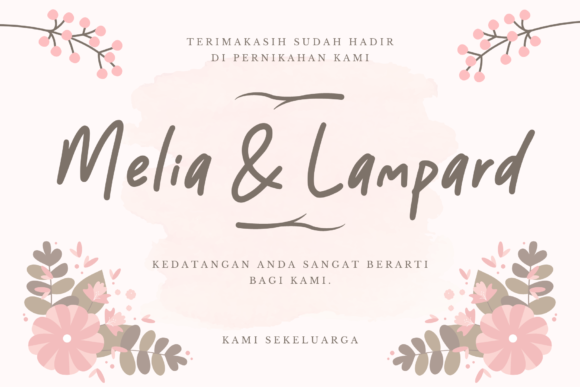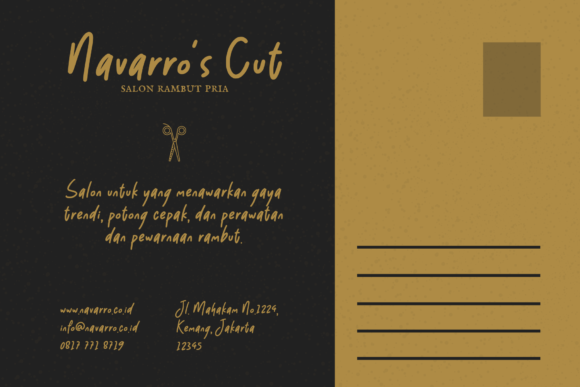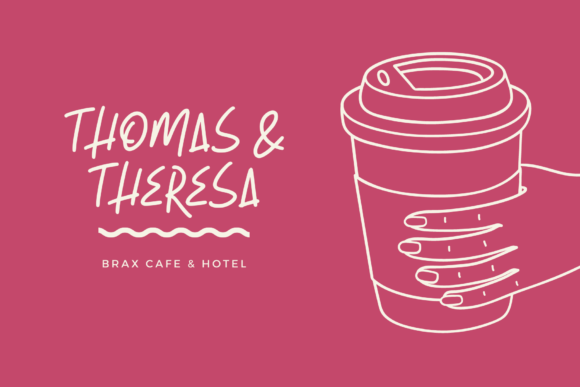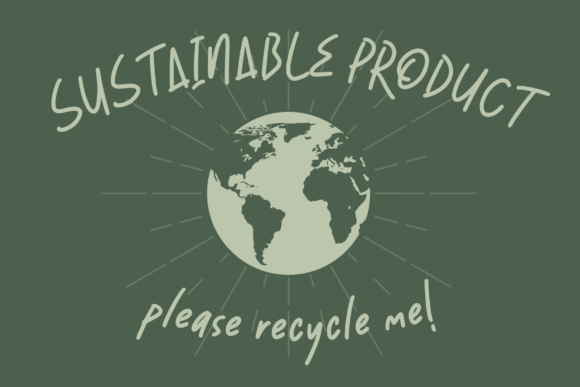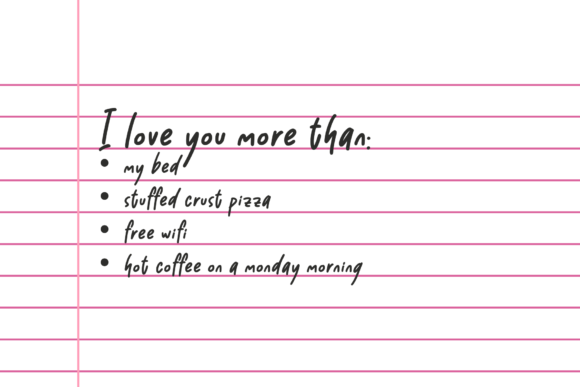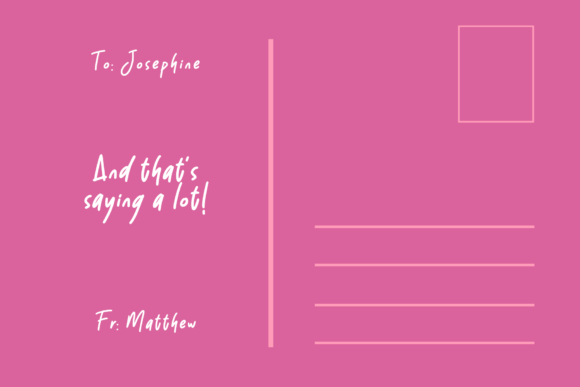
Introduction to Lampard Font
Lampard is a cute and simple lettered handwritten font that can be used for all chalkboard quotes or teaching material.
Its authentic look will add a personal and realistic feel to your designs .
Key Features of Lampard Font